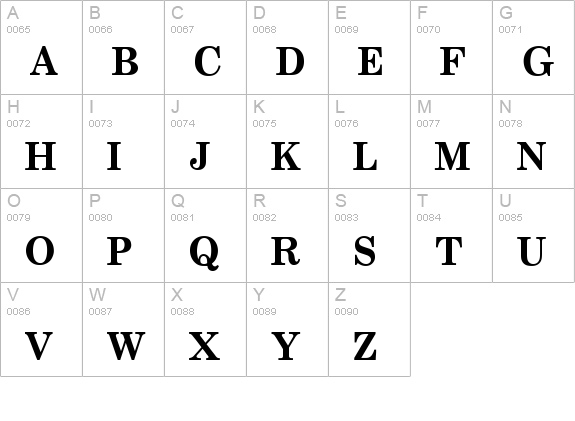
Century ATF Schoolbook BQ Bold is a strong, high-contrast variant in the Century typeface family \xE2\x80\x94 well suited to headlines, attention-grabbing titles, and strong calls-to-action.
The Century ATF Schoolbook BQ Bold font is a timeless and versatile typeface that exudes elegance and sophistication. With its bold and striking design, this font is perfect for creating eye-catching headlines, titles, and logos. Its clean lines and classic look make it suitable for a wide range of design projects, from print materials to digital displays. What sets this font apart is that it is available for free download at FontsMarket.com. This means that you can easily access and use this high-quality font in your projects without any cost. Whether you're a professional designer looking for a reliable typeface or a hobbyist wanting to enhance your creative projects, the Century ATF Schoolbook BQ Bold font is a fantastic choice that won't break the bank. Download it today and elevate your designs with this exceptional font.